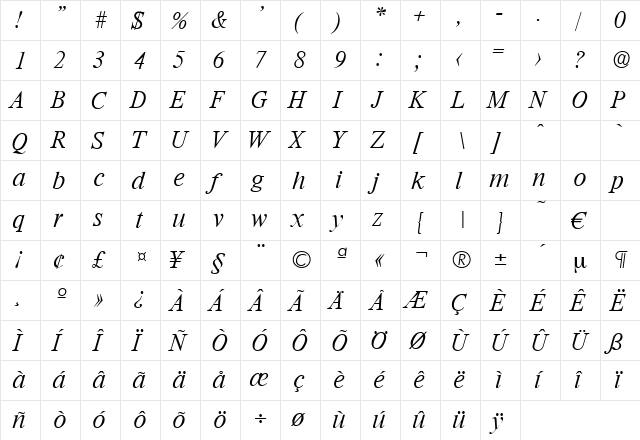
Riccione-XlightIta Regular Font Preview
Riccione-XlightIta Regular
Riccione-XlightIta Regular Font Details
Design Context for Riccione-XlightIta Typeface
Riccione-XlightIta is a composed and adaptable typeface that performs quietly and consistently across a wide range of design contexts. The delicate stroke weight brings airiness and refinement to layouts.